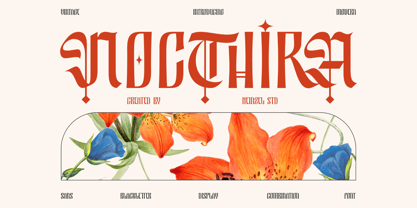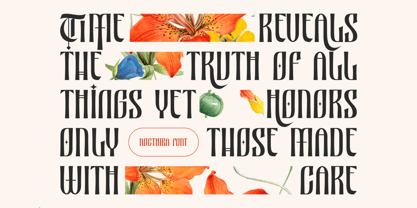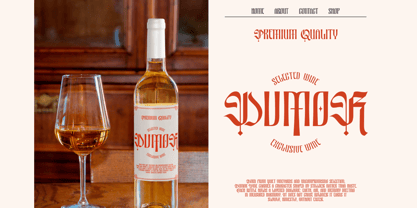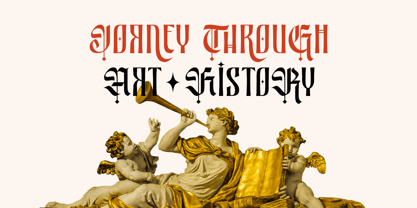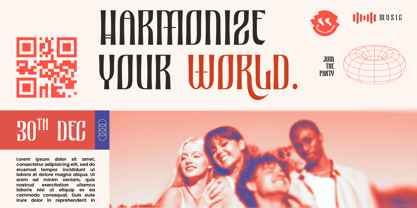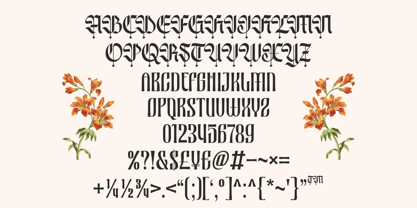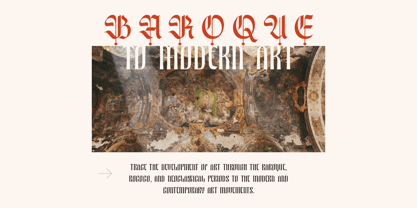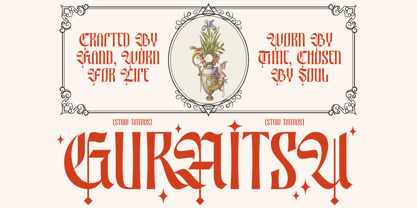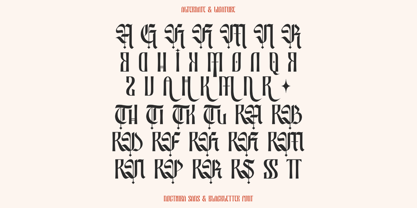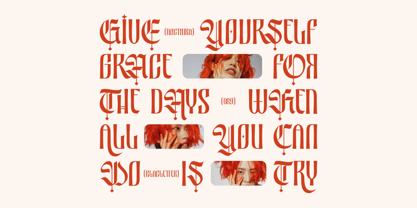
Nocthira
by Heinzel Std
Nocthira is a bold and artistic blackletter typeface that blends vintage gothic elegance with a refined modern touch. Inspired by classic medieval lettering, Nocthira features dramatic strokes, sharp serifs, and ornamental details that create a strong, unforgettable visual impact. Its distinctive letterforms are designed to stand out, making it perfect for branding, logos, posters, album covers, apparel design, packaging, tattoo-inspired artwork, and editorial headlines. Crafted with a balance of tradition and creativity, Nocthira delivers an authentic old-world atmosphere while remaining versatile for contemporary design needs. The decorative elements and unique character shapes add personality and sophistication, giving your typography a powerful and luxurious presence. Whether you're creating a gothic-themed project, vintage branding, or bold display typography, Nocthira Blackletter Typeface brings character, drama, and timeless style to every design.